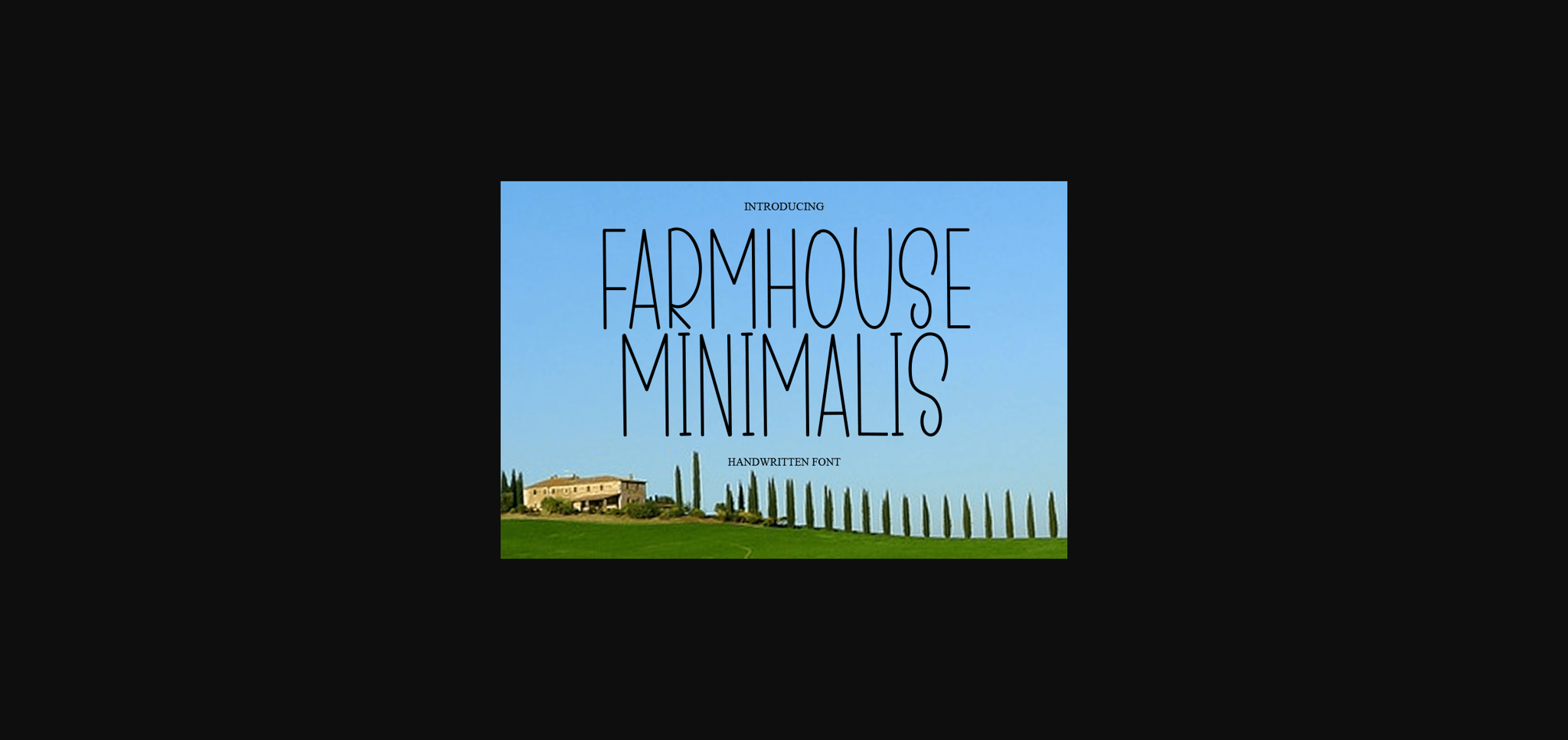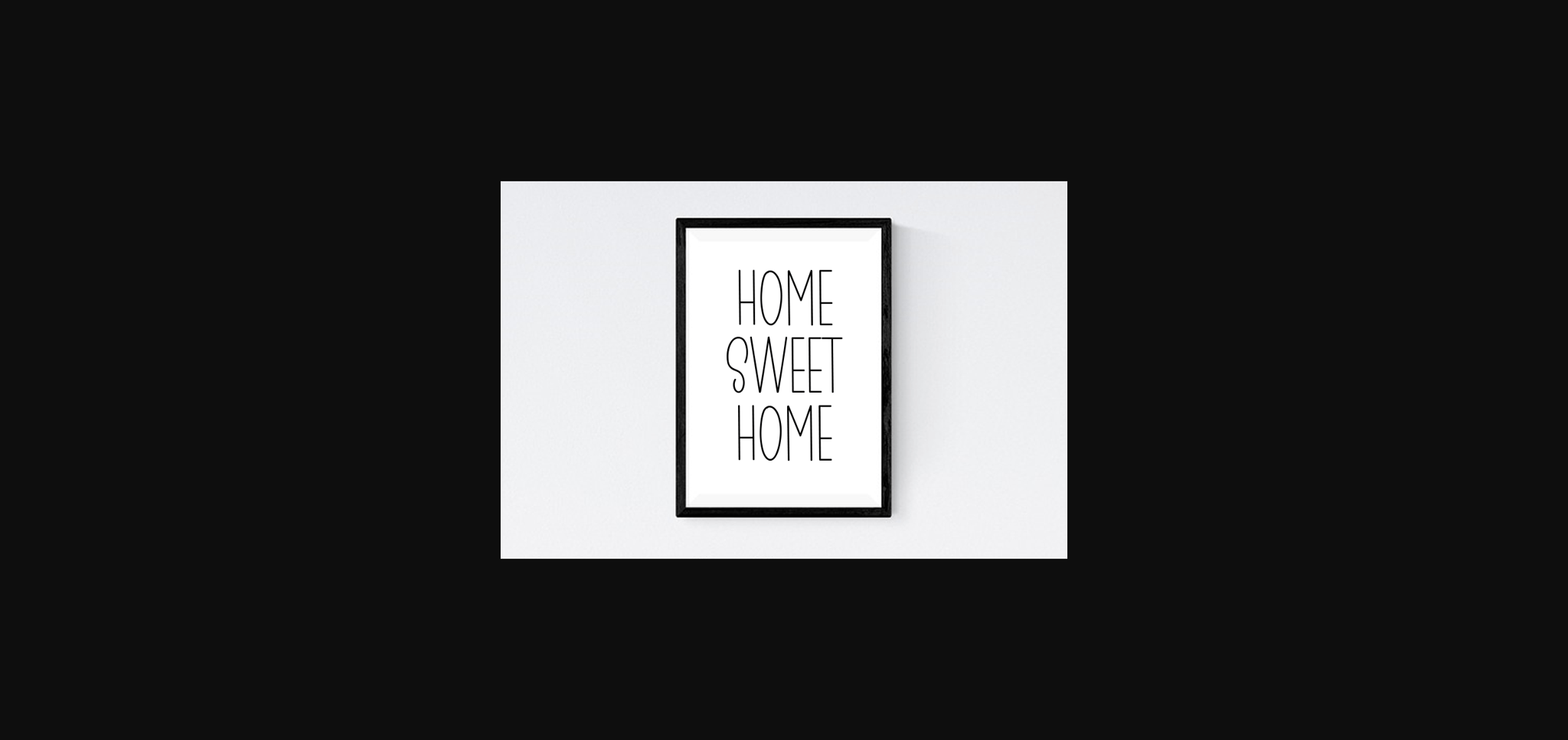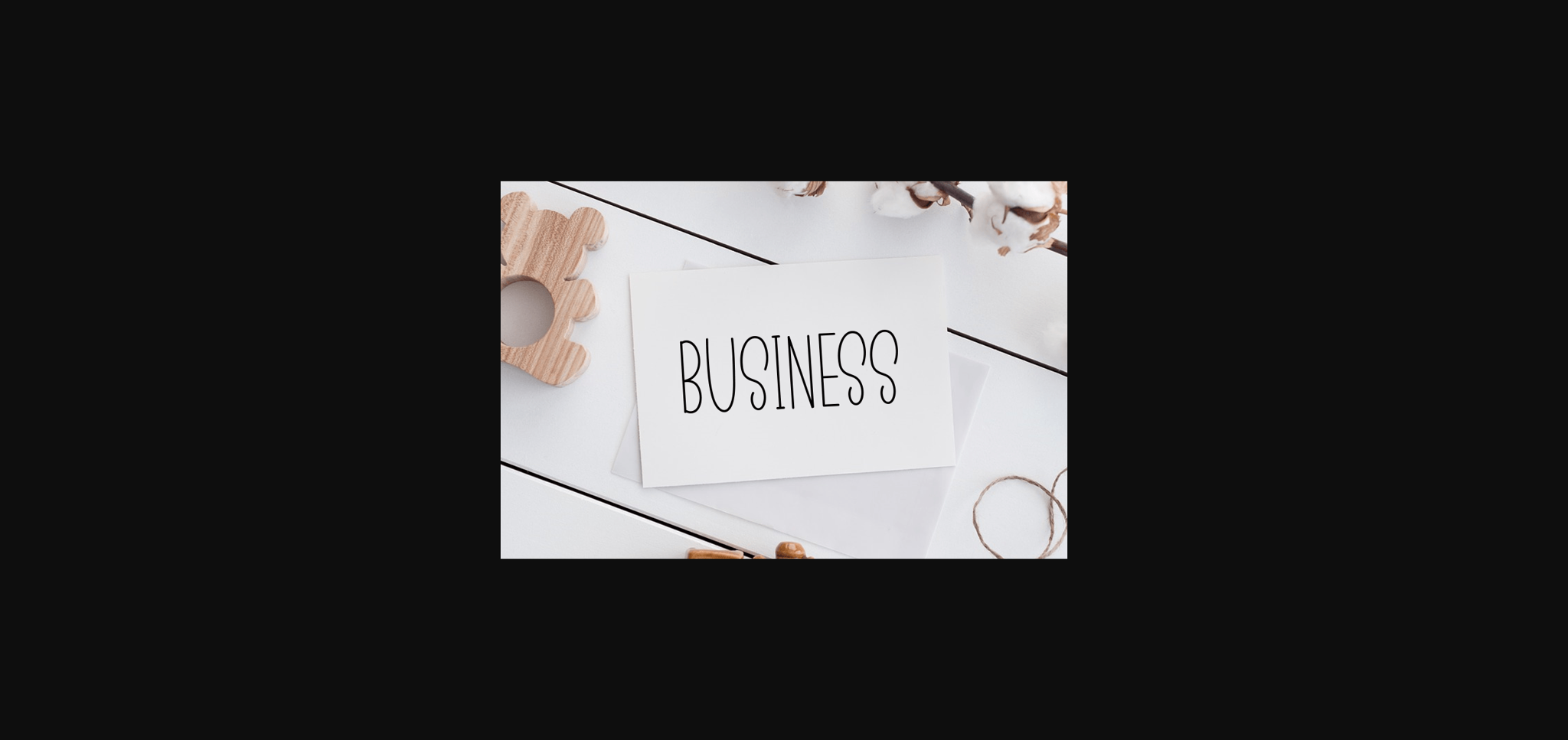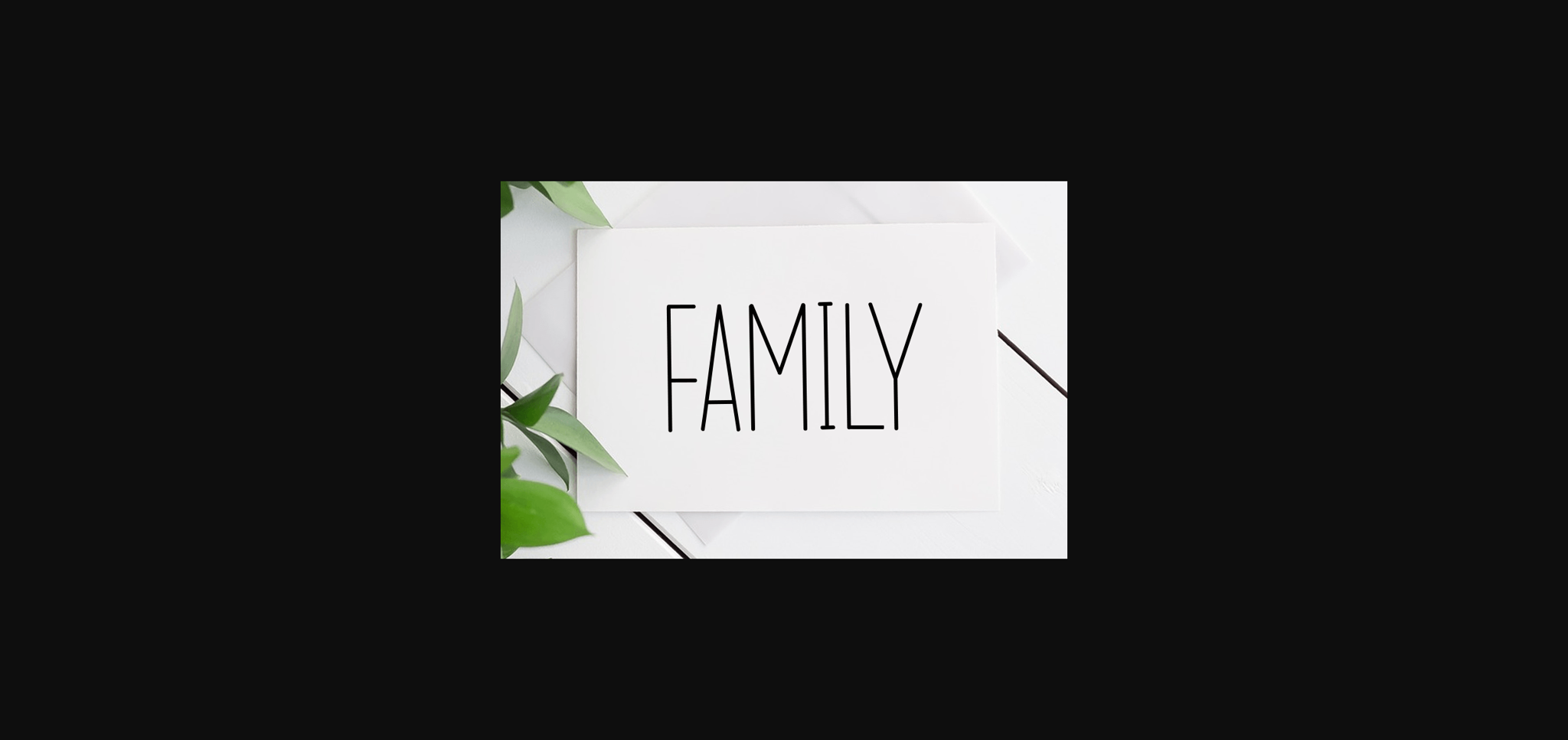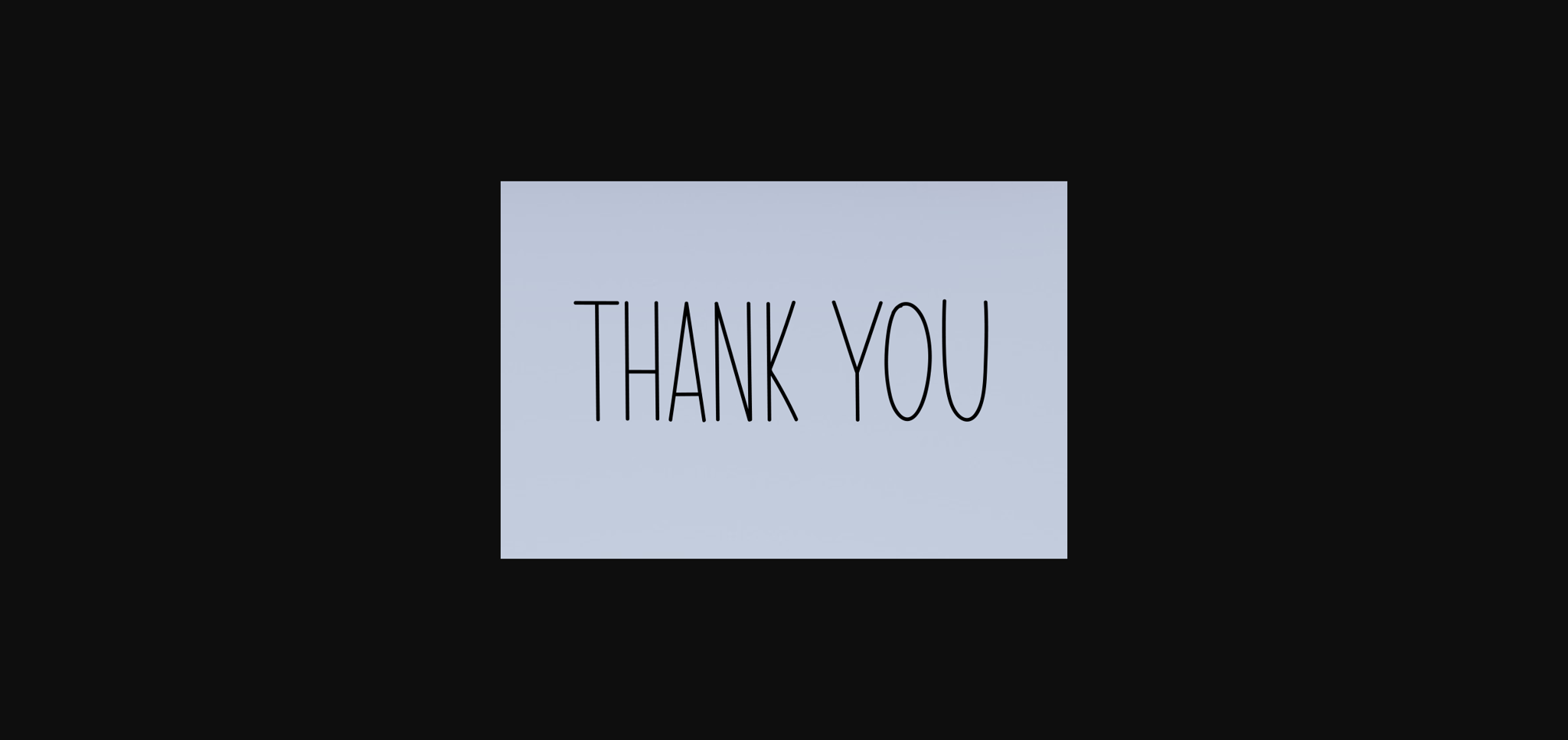
HomeSans Serif FontsFarmhouse Minimalis Font Sans Serif Fonts Farmhouse Minimalis Font FacebookXPinterestWhatsApp 1 of 7 ... Farmhouse Minimalis Font Poster 2... Farmhouse Minimalis Font Poster 3... Farmhouse Minimalis Font Poster 4... Farmhouse Minimalis Font Poster 5... Farmhouse Minimalis Font Poster 6... Farmhouse Minimalis Font Poster 7... About Farmhouse Minimalis Font Farmhouse Minimalis is sweet and beautiful sans serif font. Featuring characters that dance along the baseline, this font will add a luxury spark to any design project you wish to create! DOWNLOAD NOW People also explored California Font Alexsia Font Dorothy Font Sunflower Butterflies Font URW Antiqua Winther Font Strips & Spots Font Clovvo Font Boxing Font 401 0 TagsFarmhouse Minimalis Font Previous articleNuevo FontNext articleHome Mine Font LEAVE A REPLY Cancel reply Comment: Please enter your comment! Name:* Please enter your name here Email:* You have entered an incorrect email address! Please enter your email address here Website: Save my name, email, and website in this browser for the next time I comment. Personal Use Free Ernesthuge Personal Use Free Read more about this font Geuli Font Personal Use Free Read more about this font Imelda Personal Use Free Read more about this font Splatter Splash Personal Use Free Read more about this font BLOG How to Install and Use Fonts on Windows, macOS, and Web Projects How to Install and Use Fonts on Windows, macOS, and Web Projects Fonts are a crucial part of design and branding. Whether you’re designing a... Free vs Paid Fonts: Why Investing in Premium Fonts Is Worth It Where to Buy American Fonts Online in 2024 Free Fonts Risk: Why Free Fonts Can Be Dangerous for Designers